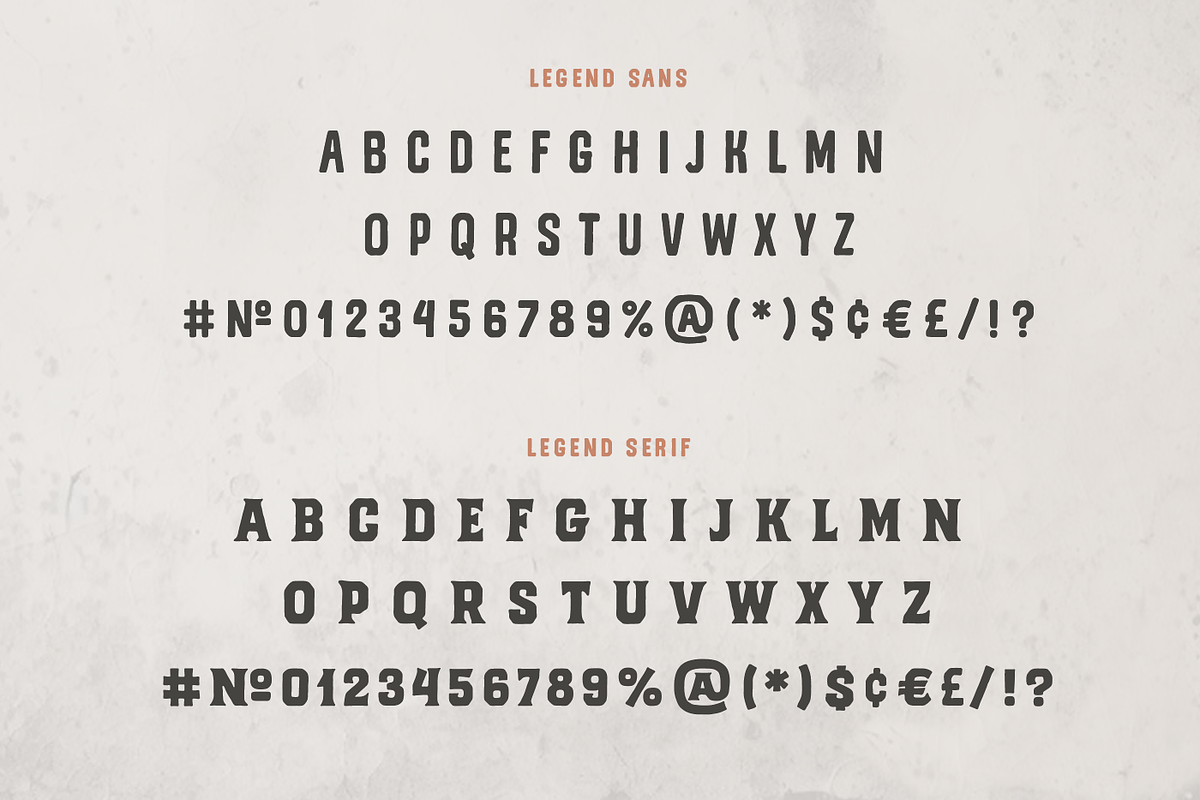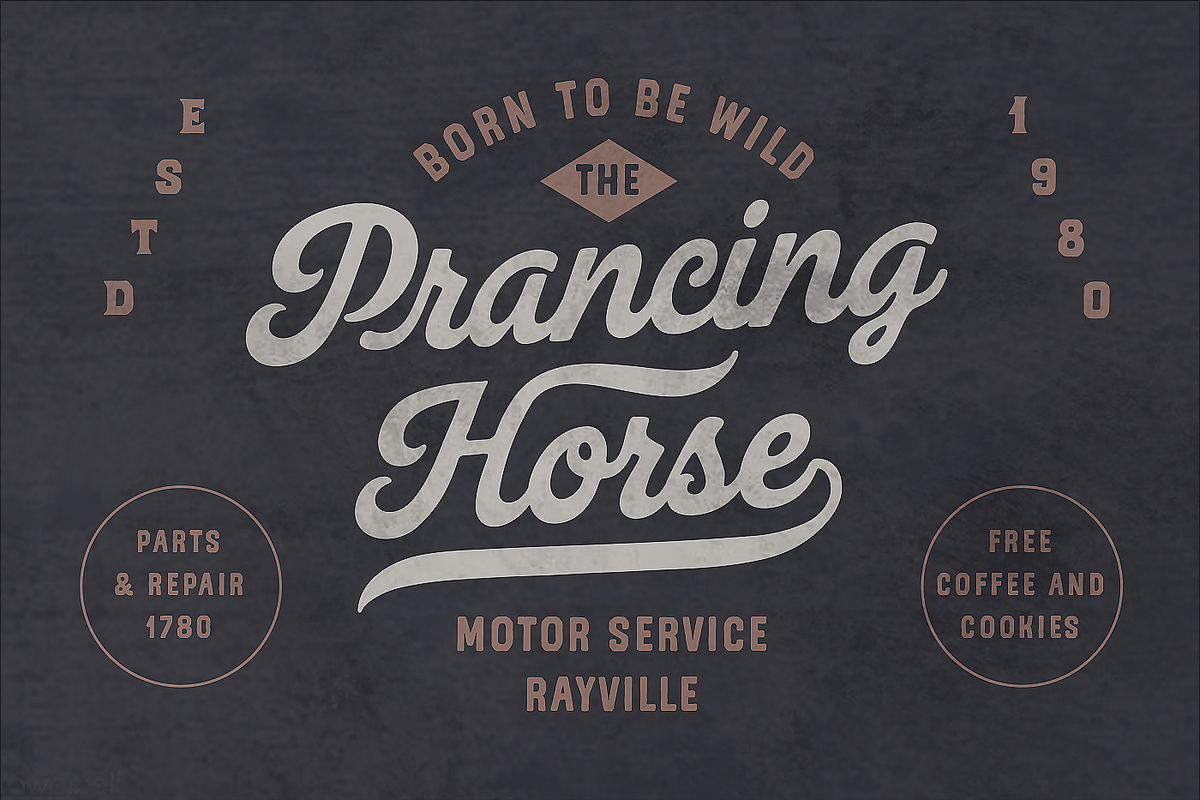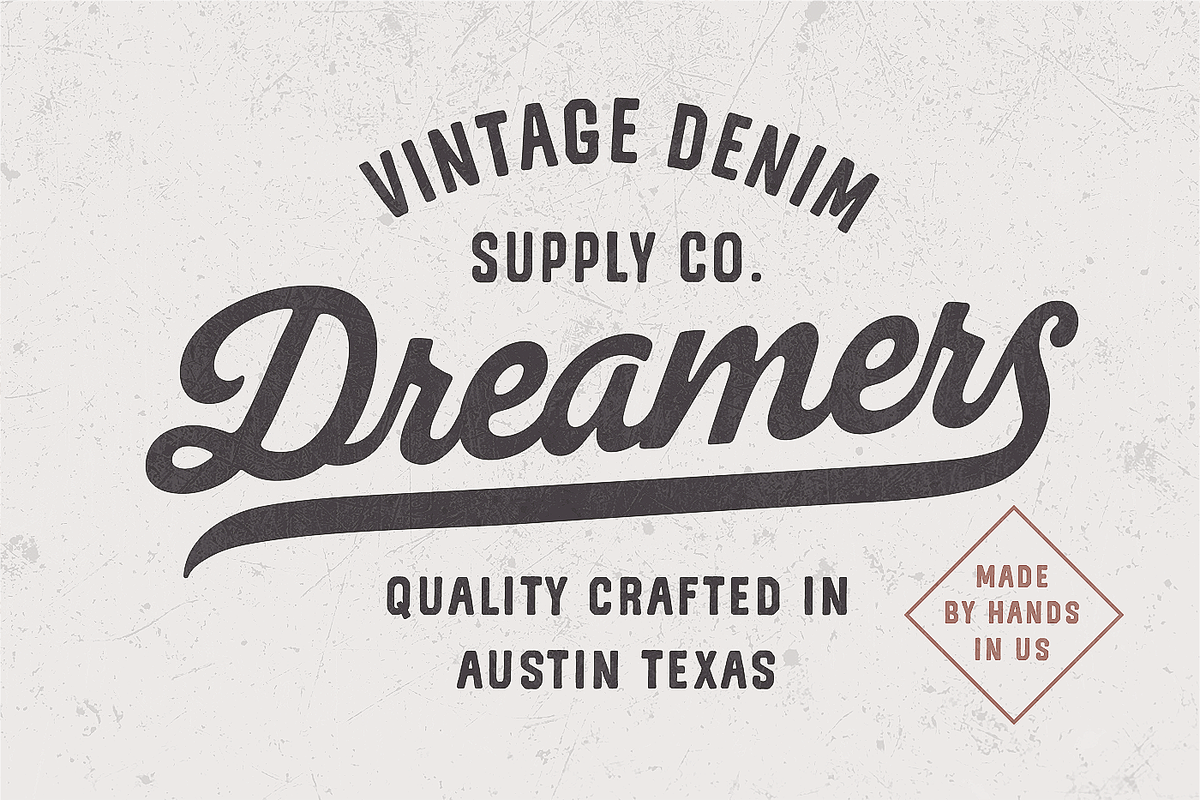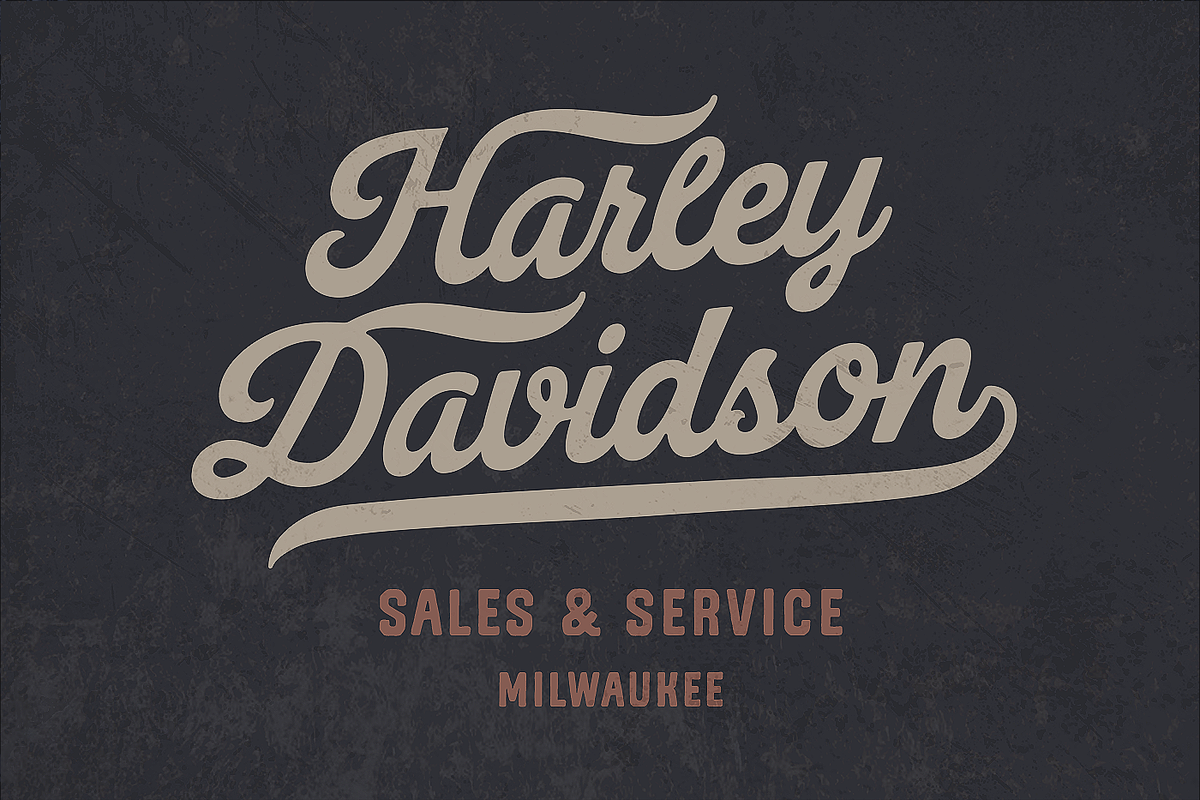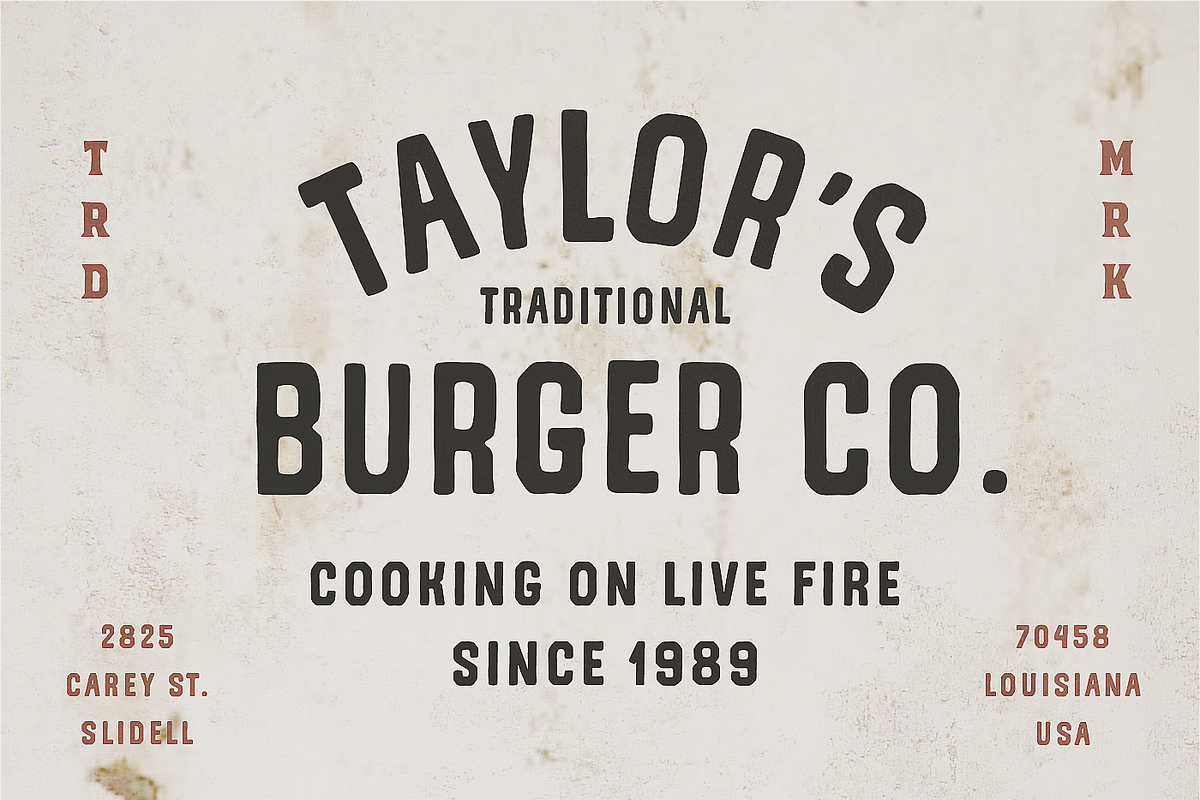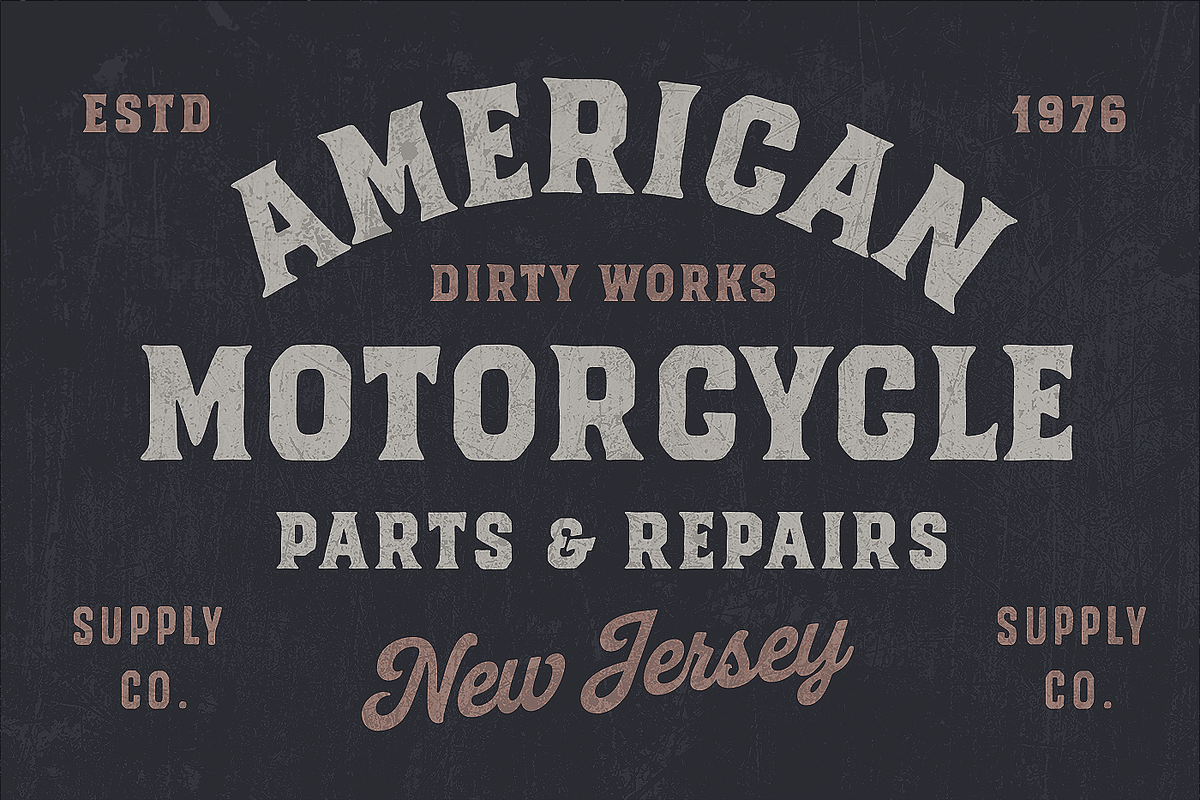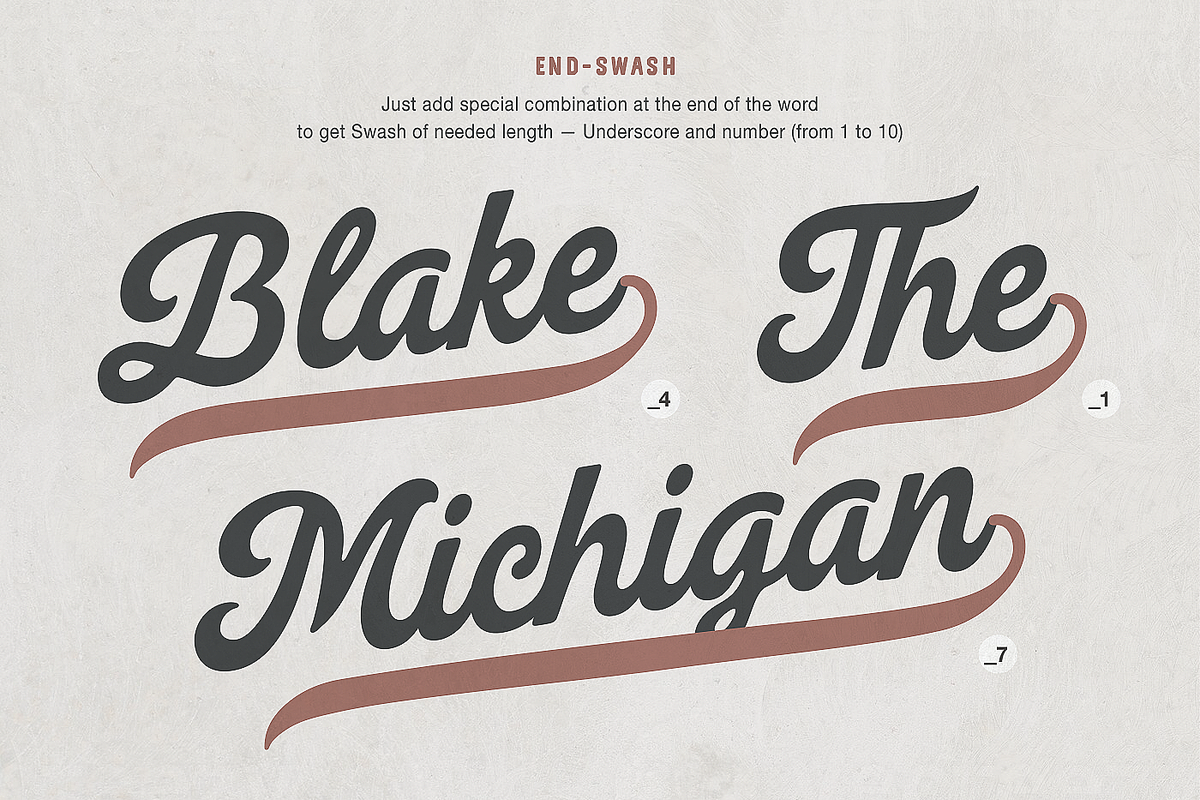
Legend Script, Sans & Serif (Soft)
What’s New:
Softer contours (by popular request)
More alternates added to the Script
Multilingual support included
The Legend Font was handcrafted under the inspiration of traditional American typography and lifestyle. It includes a Script, Sans, and Serif — designed to work together seamlessly and create a strong vintage vibe.
This typeface tells a story of those whose hearts belong to the open road and the great outdoors — those who appreciate the scent of gasoline and motor oil, value rough work, live in American denim, and enjoy hearty street food.
Legend is perfect for vintage-style lettering and logotypes, shop signs, labels, t-shirts, product packaging, and more.